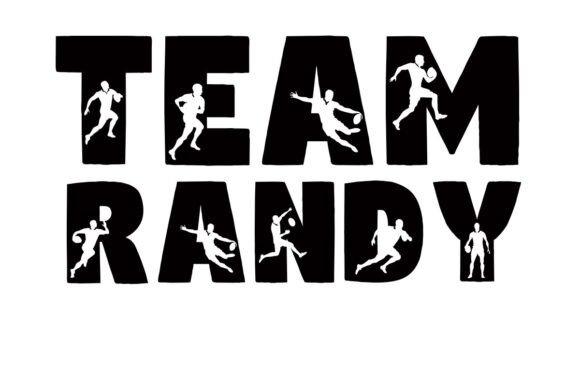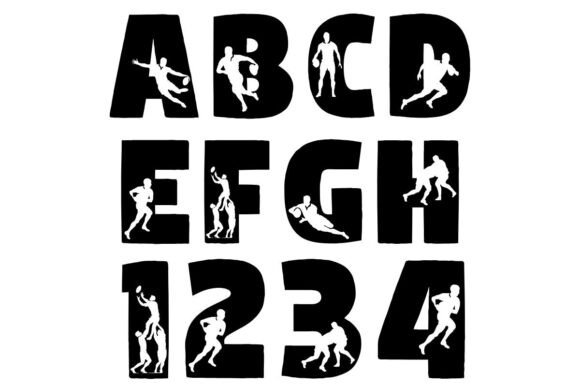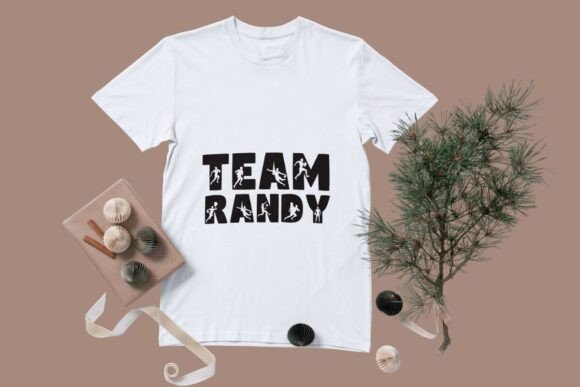
Introduction to Rugby Font
You’ve finally nailed the perfect design for your sports-themed project, but it’s missing that one crucial element – a bold, attention-grabbing font. As you search through your font library, you stumble upon Rugby Font, a game-changing typeface that embodies the energy and strength of the sport.
Rugby Font is a high-quality design resource that brings a level of sophistication and athleticism to any creative project. With its bold uppercase letters and numbers, it’s perfect for sports-themed designs, jerseys, school spirit wear, team branding, and more. Whether you’re designing for print or digital, Rugby Font delivers a strong, athletic aesthetic that stands out from the crowd.
Key Features of Rugby Font
- High-quality font design with a unique, bold, and modern aesthetic, perfect for creative projects and design resources.
- Designed to be versatile and suitable for a wide range of applications, including logos, signage, and digital design.
- Unique characteristics include a rugged, athletic feel, making it an ideal choice for sports-related design projects, such as rugby, football, and more.
Honest Review: Rugby Font
What works well: ✨ The Rugby Font is a high-quality font with a unique and bold design. It’s perfect for creating eye-catching headlines and titles. The transparent background makes it easy to combine with other design elements. The font is also highly customizable, allowing you to adjust the size, color, and style to suit your design needs.
- Unique and bold design
- High-quality font
Any limitations: ⚠️ The Rugby Font may not be suitable for smaller text sizes, as it can be difficult to read. Additionally, the font may not be compatible with all design software or platforms.
Overall, I’m really impressed with the Rugby Font. It’s a great addition to any designer’s toolkit, and I would definitely recommend it to anyone looking for a high-quality, free design resource.
Rugby Font
The Rugby Font is a versatile and high-quality design resource that can elevate any creative project. Its unique style and transparent background make it an ideal choice for various design applications.
- Pair the Rugby Font with complementary design elements to enhance its unique character.
Common Use Cases for Rugby Font
The Rugby Font is ideal for various design applications, including:
- Sporting events and teams
- Event branding and marketing
- Graphic design and visual identity